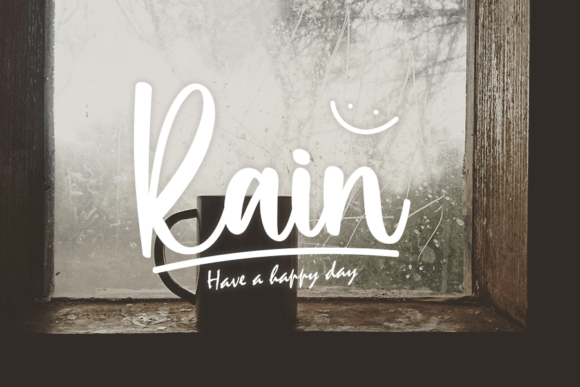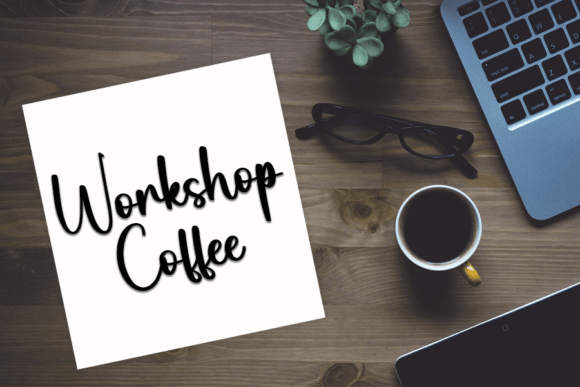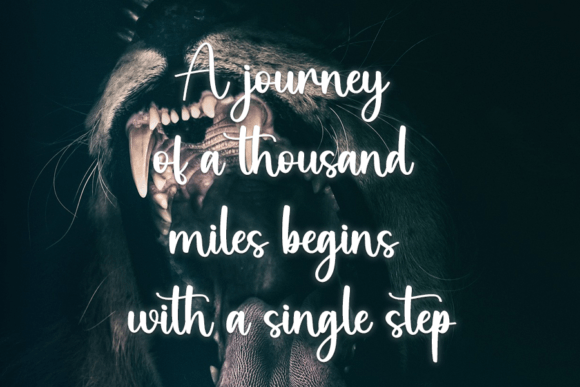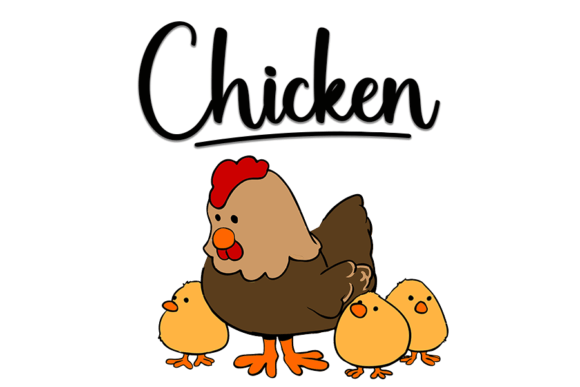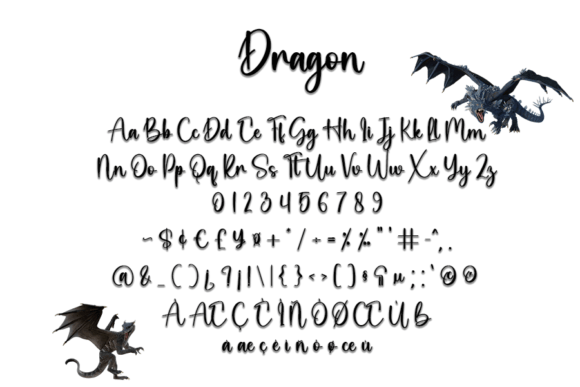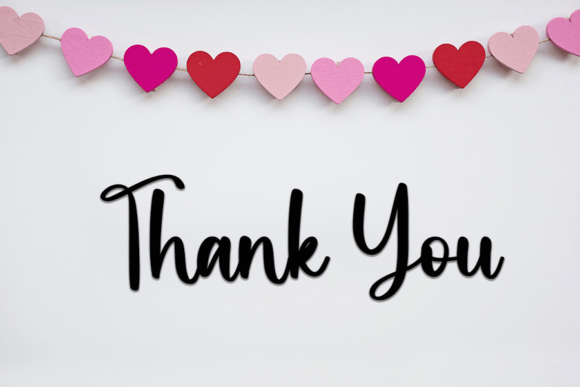
Dragon Font: The Bold and Beautiful Script Font for All Occasions
Are you tired of using the same old fonts for your crafts, digital designs, presentations, and greeting cards? Look no further than the Dragon Font, a bold and beautiful script font that’s sure to become your new favorite. With its elegant and eye-catching design, this font is perfect for adding a touch of sophistication and whimsy to any project.
What Makes Dragon Font So Special?
Dragon Font is a unique and versatile script font that’s designed to make a statement. Its bold and flowing lines make it perfect for creating eye-catching headlines, titles, and text displays. But what really sets it apart is its ability to work well in a variety of contexts, from digital designs and presentations to crafts and greeting cards.
Whether you’re a designer, crafter, or simply someone who loves to create, Dragon Font is a great addition to your font collection. Its elegant and cursive design makes it perfect for creating beautiful and professional-looking text, while its bold and playful lines add a touch of whimsy and fun.
Uses for Dragon Font
So, what can you use Dragon Font for? The possibilities are endless! Here are just a few ideas to get you started:
- Crafts: Use Dragon Font to add a personal touch to your scrapbooking, card making, and other paper crafts. Its bold and playful lines make it perfect for creating eye-catching titles and text displays.
- Digital Design: Add a touch of elegance and sophistication to your digital designs with Dragon Font. Its elegant and cursive design makes it perfect for creating beautiful and professional-looking text.
- Presentations: Make your presentations stand out with Dragon Font. Its bold and flowing lines make it perfect for creating eye-catching headlines and titles.
- Greeting Cards: Use Dragon Font to create beautiful and personalized greeting cards for any occasion. Its elegant and cursive design makes it perfect for creating heartfelt and sincere messages.
Why Designers and Crafters Love Dragon Font
So, why do designers and crafters love Dragon Font? Here are just a few reasons:
- Unique and Versatile: Dragon Font is a unique and versatile script font that’s perfect for a variety of projects and contexts.
- Elegant and Eye-Catching: Its elegant and cursive design makes it perfect for creating beautiful and professional-looking text, while its bold and playful lines add a touch of whimsy and fun.
- Easy to Use: Dragon Font is easy to use and works well with a variety of design and crafting software.
- High-Quality: Dragon Font is a high-quality font that’s designed to produce crisp and clear text, even at small sizes.
Tips for Using Dragon Font
Here are a few tips for using Dragon Font:
- Use it Sparingly: While Dragon Font is a beautiful and eye-catching font, it can be overwhelming if used too much. Use it sparingly to add emphasis and create visual interest.
- Experiment with Colors: Dragon Font works well with a variety of colors and backgrounds. Experiment with different colors and combinations to find the one that works best for your project.
- Pair it with Other Fonts: Dragon Font works well with a variety of other fonts and styles. Experiment with pairing it with other fonts to create a unique and visually interesting effect.
In conclusion, Dragon Font is a bold and beautiful script font that’s perfect for designers, crafters, and anyone who loves to create. Its elegant and eye-catching design makes it perfect for adding a touch of sophistication and whimsy to any project, while its versatility and ease of use make it a great addition to any font collection.